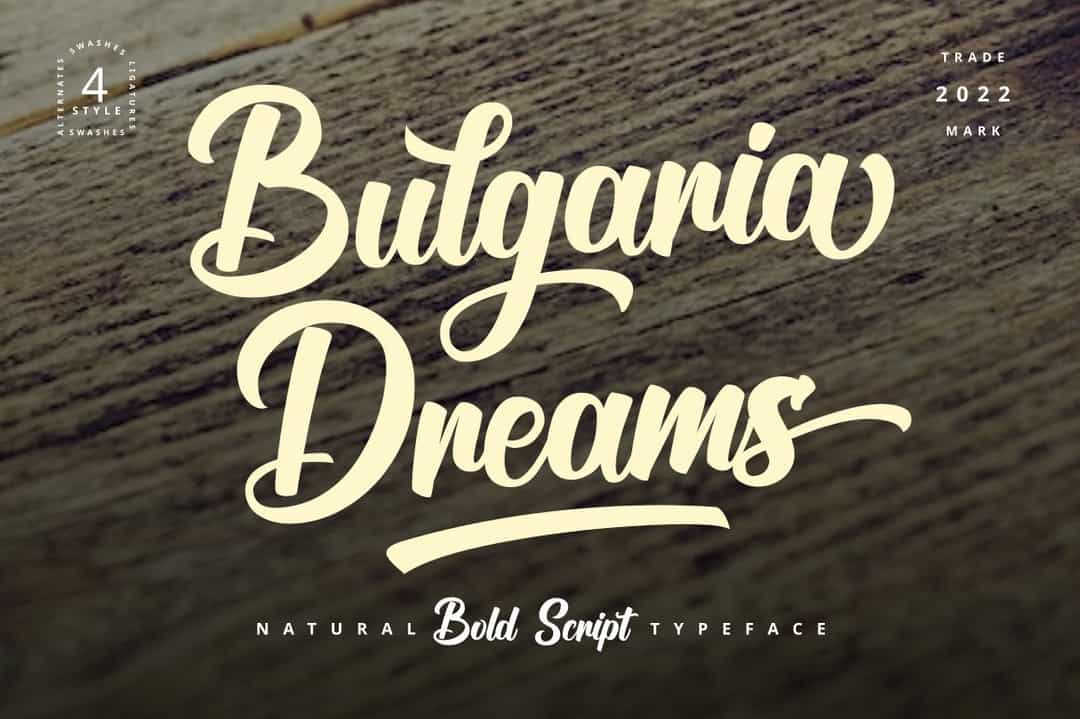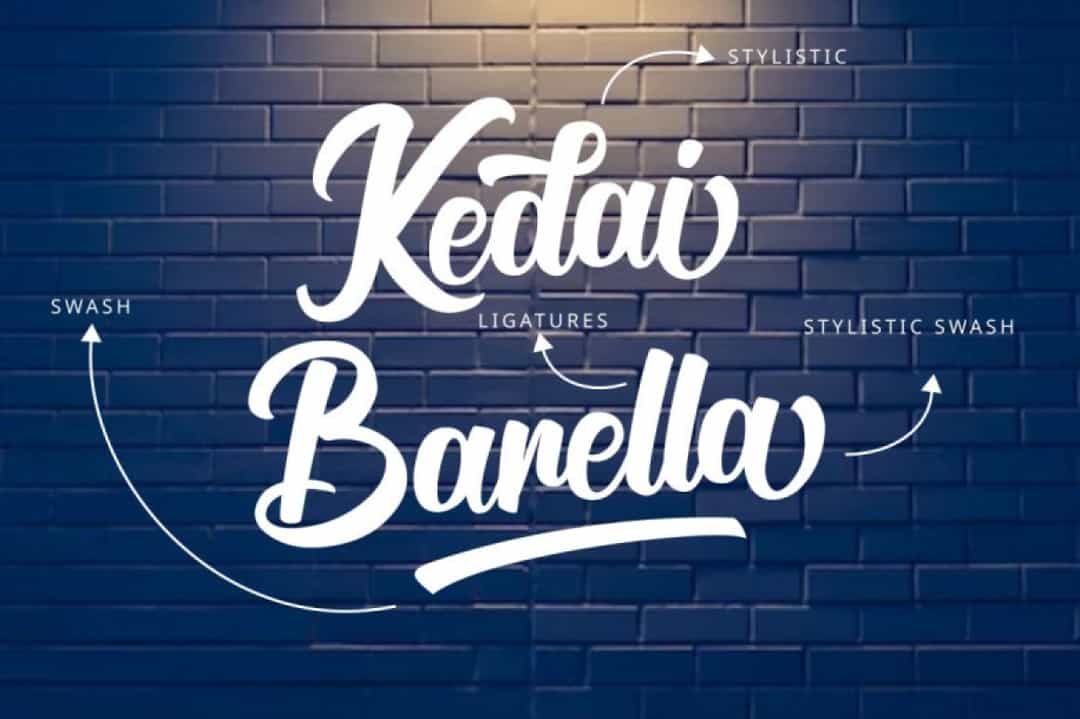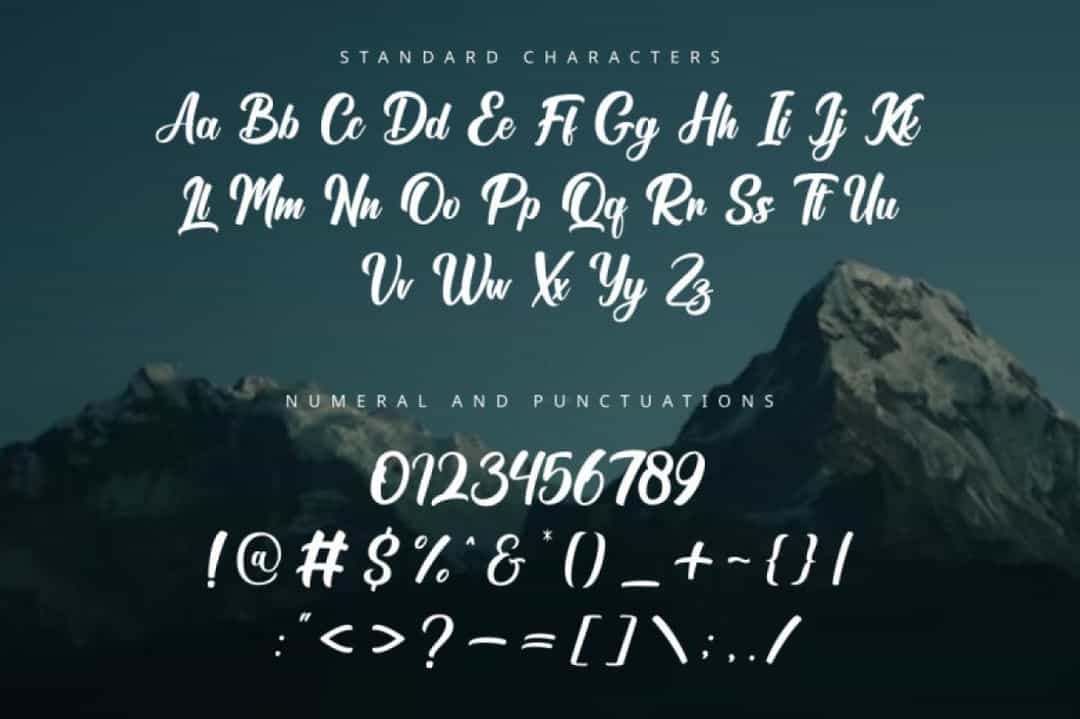
Are you searching for fonts to use for logos and event brochures? Bulgarian Dreams Font could be the solution; its elegant lettering has natural-looking and curvy lines similar to writing with an unearthed brush on paper.